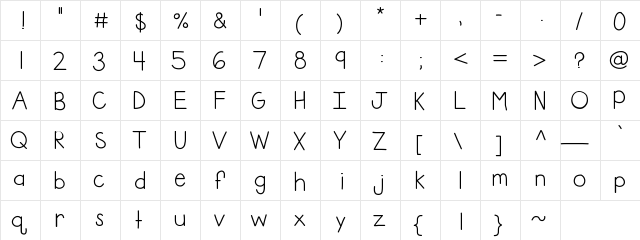
KBFirstGradeGroove Medium
Design Context for KBFirstGradeGroove Typeface
KBFirstGradeGroove offers clean, dependable letterforms without strong stylistic allegiance, making it a practical choice for designers who need flexibility.
Pro Tip: Use KBFirstGradeGroove in both headline and body roles to test its range before committing to a single application.